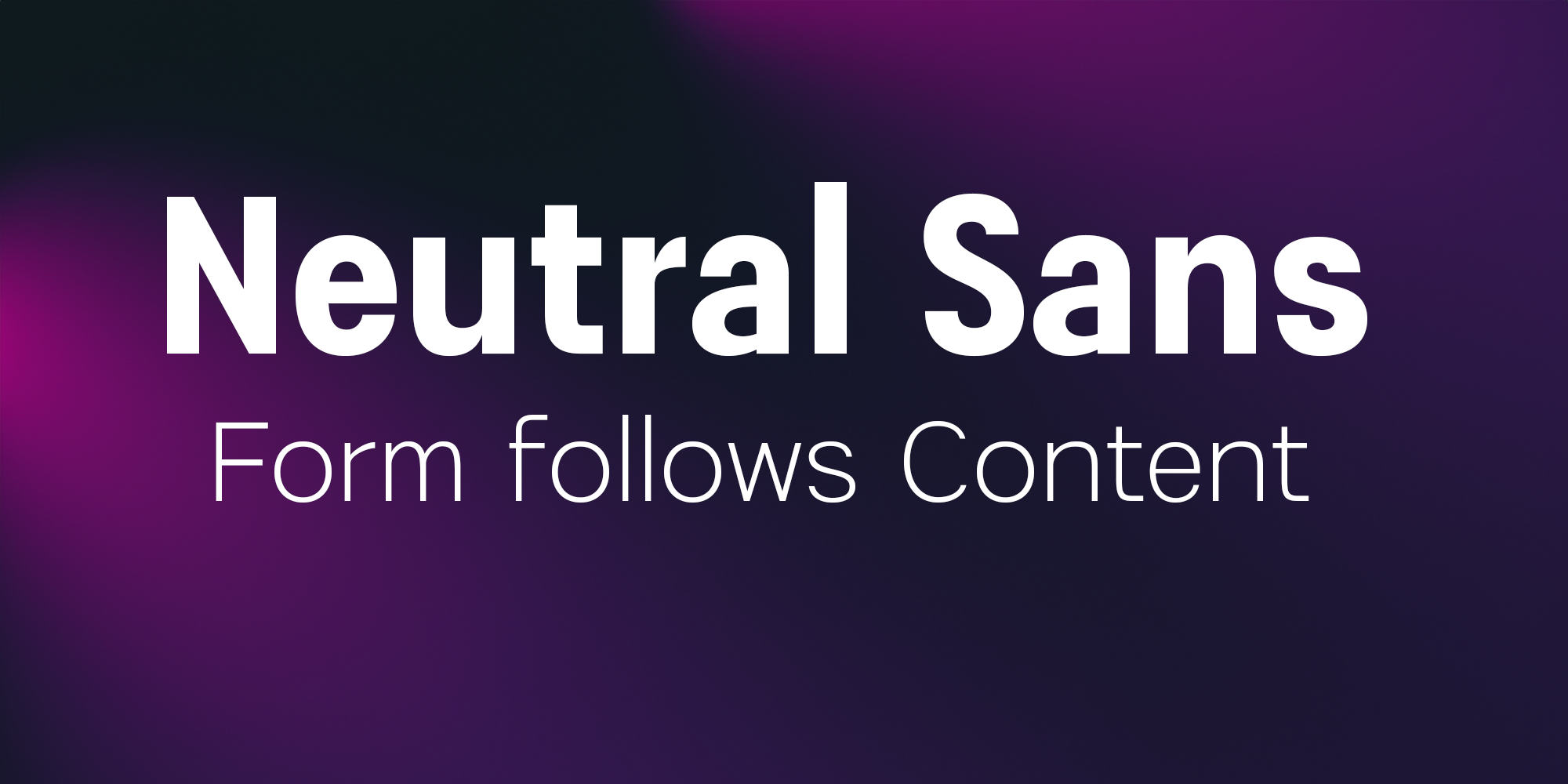
Neutral Sans Font is perfect for universal corporate branding, international communications, balanced web interfaces, professional documentation, global business presentations, neutral institutional designs, diplomatic publications, and unbiased informational materials. This versatile typeface excels in applications requiring objective clarity and universal appeal that ensures consistent readability across diverse audiences through balanced visual character and neutral sophistication.
What makes Neutral Sans Font exciting is its perfect neutrality that delivers universal accessibility and objective communication through carefully balanced letterforms designed for maximum inclusivity. The font features mathematically precise character construction with neutral proportions and unbiased styling that ensures consistent performance across cultures, languages, and applications perfect for organizations requiring universal appeal and diplomatic communication excellence.
The Neutral Sans Font family includes comprehensive weight options and neutral variations with globally accessible features, offering designers complete tools for creating universally effective communications. The family provides consistent neutral aesthetic with strategic weight progression for effective international hierarchy and global branding projects requiring genuine universal character and diplomatic appeal.
Neutral Sans Font Free Download represents an exceptional choice for organizations seeking typography that embodies universal accessibility and neutral professional standards. Whether you're developing international business communications, global corporate identities, diplomatic materials, or universal interface designs, this font provides the balanced character needed for establishing neutral credibility and universal brand acceptance.
The precisely balanced letterforms of Neutral Sans Font ensure optimal performance across all cultural contexts while maximizing universal appeal and neutral sophistication, making it ideal for international communications, global branding, and diplomatic presentations. This versatile typeface combines universal design principles with contemporary technical excellence for outstanding performance in diverse environments requiring authentic neutral character and globally accessible presence.